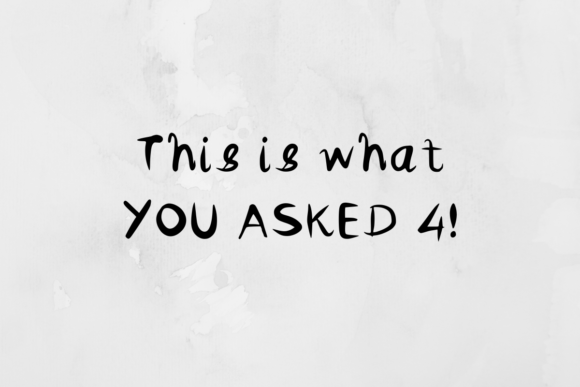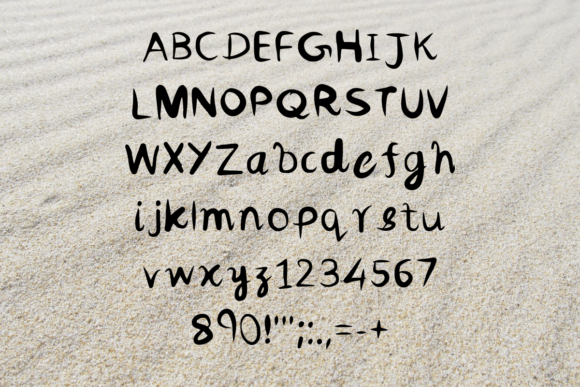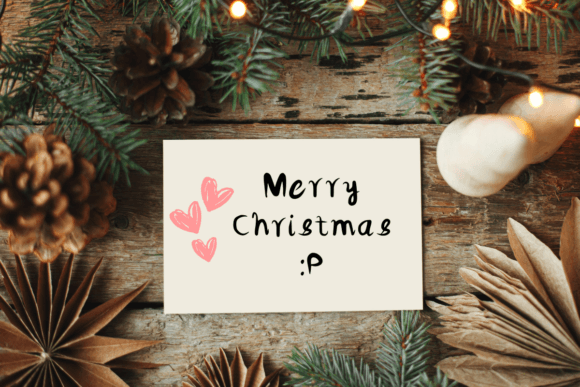
Have you ever stared at a blank canvas, waiting for the perfect spark to ignite your creativity? It’s that moment when the world around you melts away, and all that’s left is the thrill of bringing your vision to life. For designers, this moment is a familiar friend – one that calls for a font that’s just as free-spirited and artistic.
Enter the Handdrawn Brush Strokes Font, a beautifully imperfect typeface designed to inject a playful, organic vibe into your text. With its bold uppercase letters and flowing lowercase characters, this versatile font is perfect for adding a touch of whimsy to your designs. Whether you’re working on a branding project, a blog post, or a social media campaign, the Handdrawn Brush Strokes Font is the perfect tool to bring your creative vision to life.
Handdrawn Brush Strokes Font Key Features
- Font Style: A unique, handwritten font with brush stroke effects, giving it a personal and artistic feel.
- Unique Characteristics: Features a natural, hand-painted look with subtle variations in stroke width and texture, giving it a distinctive personality.
Handdrawn Brush Strokes Font Review
This font is a great choice for anyone looking for a unique, handcrafted feel for their designs. ✨ The brush strokes add a level of personality and warmth that’s perfect for branding, signage, and other applications where you want to convey a sense of human touch.
- Unique and eye-catching design
- Perfect for branding and signage
- Easy to read and use
However, there are some limitations to consider. ⚠️ The font is not suitable for all types of text, and can be difficult to use for long blocks of text. Additionally, the brush strokes can be distracting in some contexts, and may not be suitable for more formal or professional applications.
Overall, I think the Handdrawn Brush Strokes Font is a great choice for designers who want to add some personality and flair to their work. While it may not be suitable for all projects, it’s a great option for anyone looking for a unique and eye-catching font.
Tips: Use the Handdrawn Brush Strokes font for titles, headings, and quotes to add a touch of whimsy to your design.
Tips: Use the Handdrawn Brush Strokes font for handwritten text, such as invitations, greeting cards, and art pieces.
Tips: Use the Handdrawn Brush Strokes font for titles, headings, and quotes to add a touch of personality to your presentation or document.
The Handdrawn Brush Strokes font is ideal for:
- Handwritten text, such as invitations and greeting cards.
- Titles and headings for art pieces and creative projects.
- Adding a touch of personality to presentations and documents.
Alegreya Font
Alegreya Font is a beautiful, hand-drawn font with a warm and inviting feel. It’s perfect for use in titles, headings, and body text where a sense of elegance and sophistication is needed. Unlike Handdrawn Brush Strokes Font, Alegreya Font has a more refined and polished look, making it suitable for use in a variety of design contexts.